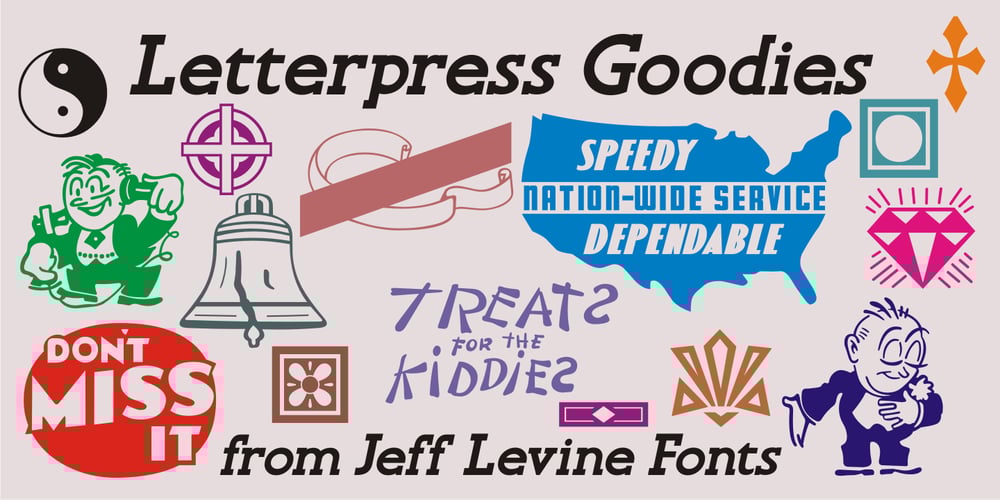
Letterpress Goodies JNL
Letterpress Goodies JNL font
Letterpress Goodies JNL Font Family was designed by Jeff Levine and published by Jeff Levine. Letterpress Goodies JNL contains 1 styles and family package options. Letterpress Goodies JNL collects various vintage stock art, decorative elements, border pieces and miscellaneous devices into one handy font file chock full of nostalgia for every print purpose.